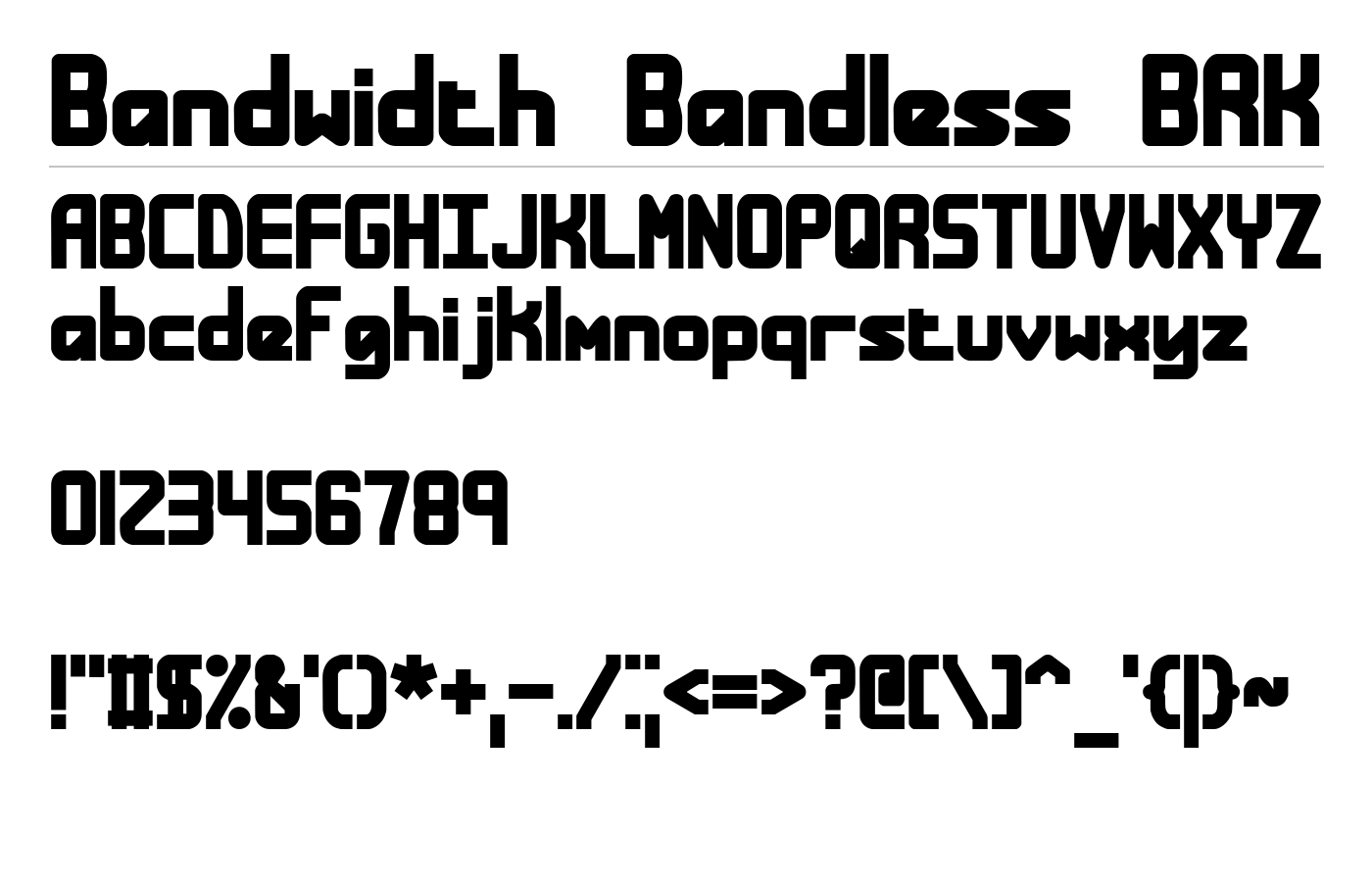
Bandwidth Bandless BRK is a bold, condensed sans serif font with a high x-height and strong geometric shapes, giving it a modern and tech-inspired character. Its uniform stroke weight, squared letterforms, and unique details like the angular Q tail create a compact, industrial feel perfect for impactful headlines, branding, and digital interfaces that demand attention and a futuristic vibe. This font works well in contexts where clarity and bold presence are key, such as posters, logos, and editorial designs with a contemporary edge.
Bandwidth Bandless BRK Font